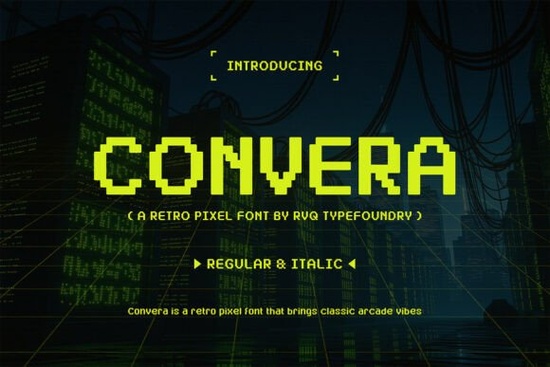
Finding the right typography for a retro-themed project can be tricky. You want something that captures the nostalgia of early digital screens without sacrificing readability. If you are looking for that specific 8-bit aesthetic, the Convera Font is a strong candidate to explore. It was designed to bring back the golden age of arcade gaming while keeping the shapes clean enough for modern use.
Many pixel-based typefaces fail when you try to use them for body text or smaller labels. They often blur together or become illegible on high-resolution screens. This specific font family addresses that issue by using sharp, pixel-perfect shapes that maintain their structure at various sizes. It includes both regular and italic styles, giving you flexibility when you need to emphasize certain words without switching typefaces.
Why choose a pixel-style typeface for modern branding?
Using a retro font does not mean your project has to look outdated. In fact, combining vintage typography with modern layout techniques creates a unique contrast that grabs attention. This style works particularly well for tech startups, gaming streams, and streetwear brands that want to stand out. The geometric forms found in this typeface provide a futuristic cyber-inspired aesthetic that fits well with neon color palettes and dark backgrounds.
When you integrate this kind of typography into your work, it instantly evokes the spirit of old-school arcades and digital adventures. It signals to your audience that you understand gaming culture or have an appreciation for digital history. For more information on the history of this design style, you can read about pixel art to understand the visual language better.
What are the best use cases for this font?
There are several practical applications where this typography shines. Because it includes uppercase and lowercase characters along with numbers and punctuation, it is versatile enough for more than just headlines. Here are a few ways you can apply it:
- Game Titles: Use it for indie game logos or menu screens to set the mood immediately.
- Streaming Graphics: Overlay it on Twitch or YouTube streams for alerts and status bars.
- Merchandise: Print it on t-shirts, mugs, or stickers for a bold statement.
- Social Media: Create quotes or announcements that need to pop in a feed.
How does it compare to other display fonts?
Adding a specialized typeface to your toolkit can streamline your workflow and improve the quality of your outputs. Whether you are making a poster for a local gaming tournament or designing a logo for a tech blog, having the right tools matters. This font delivers a distinctive look that instantly communicates a vintage gaming atmosphere with a modern edge.